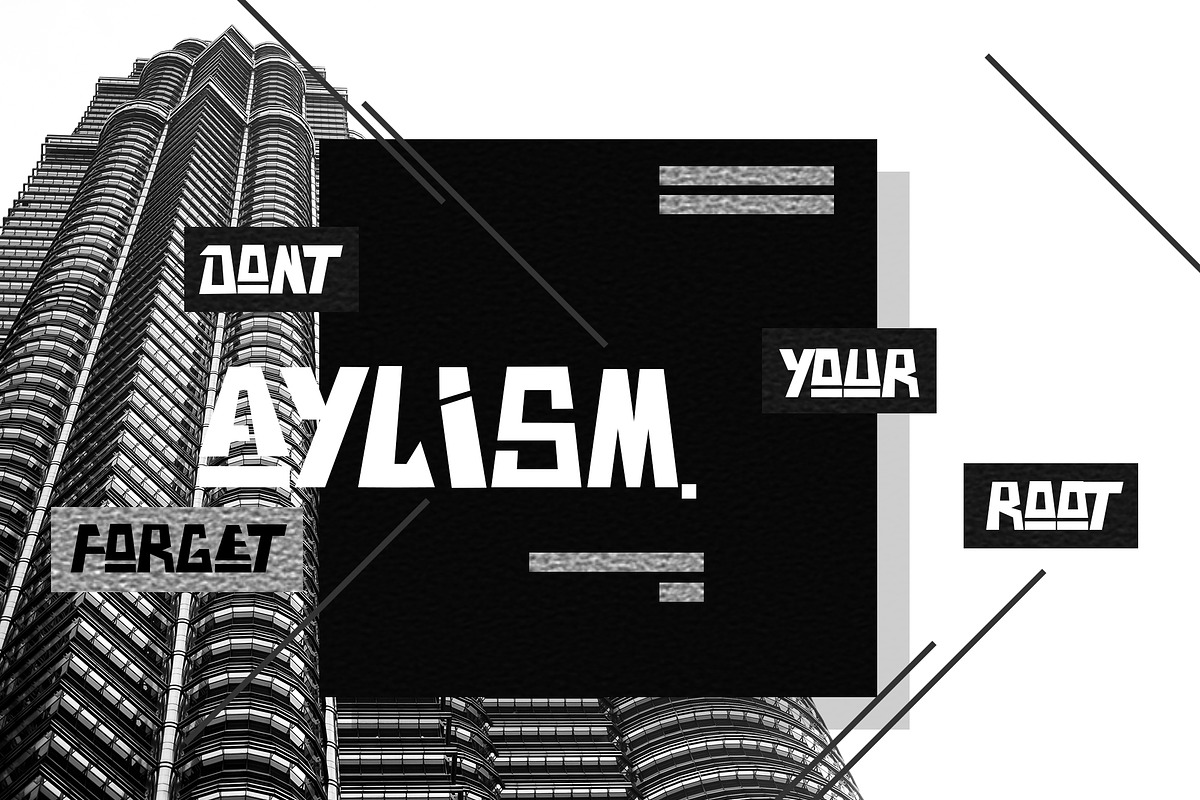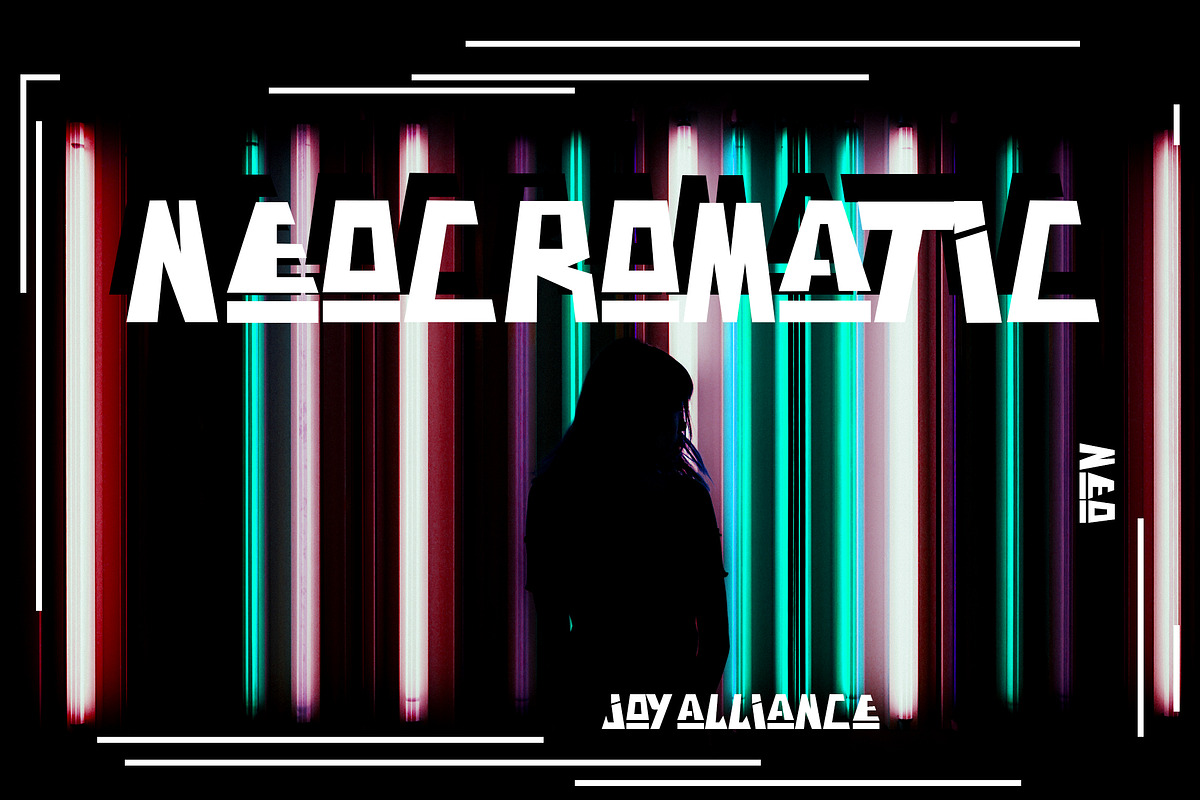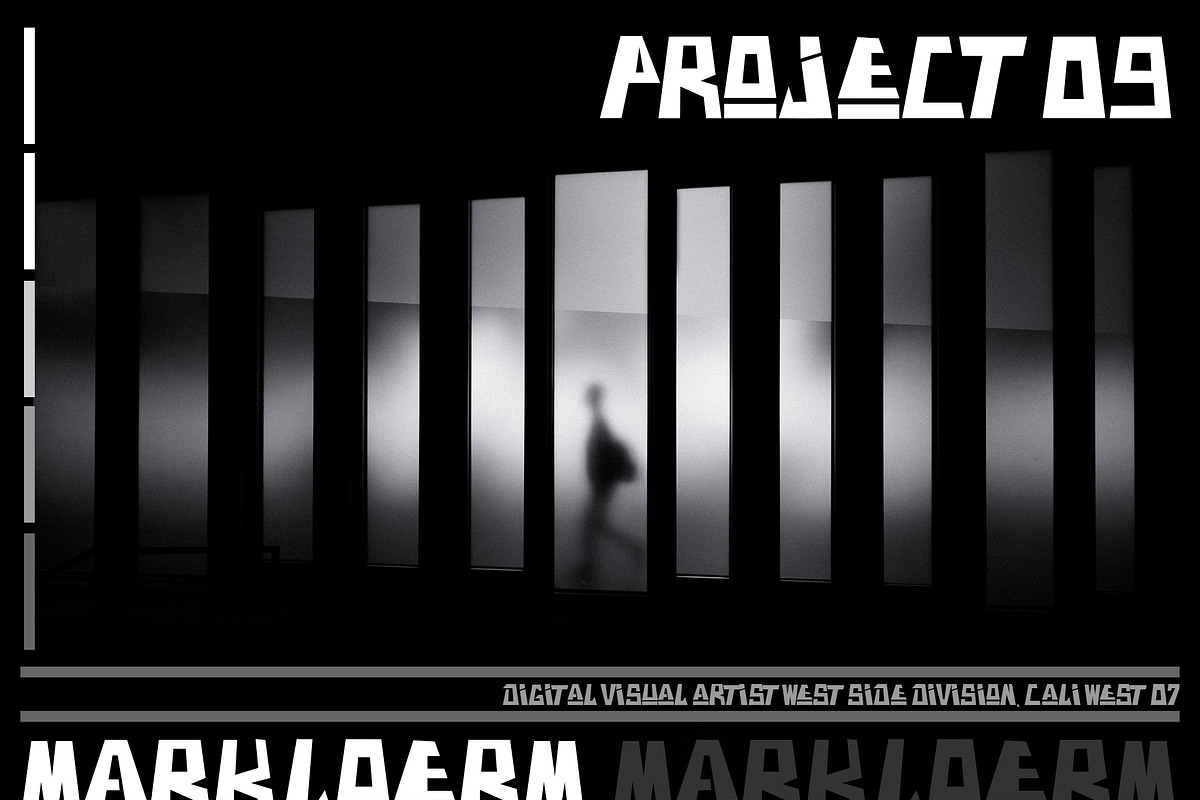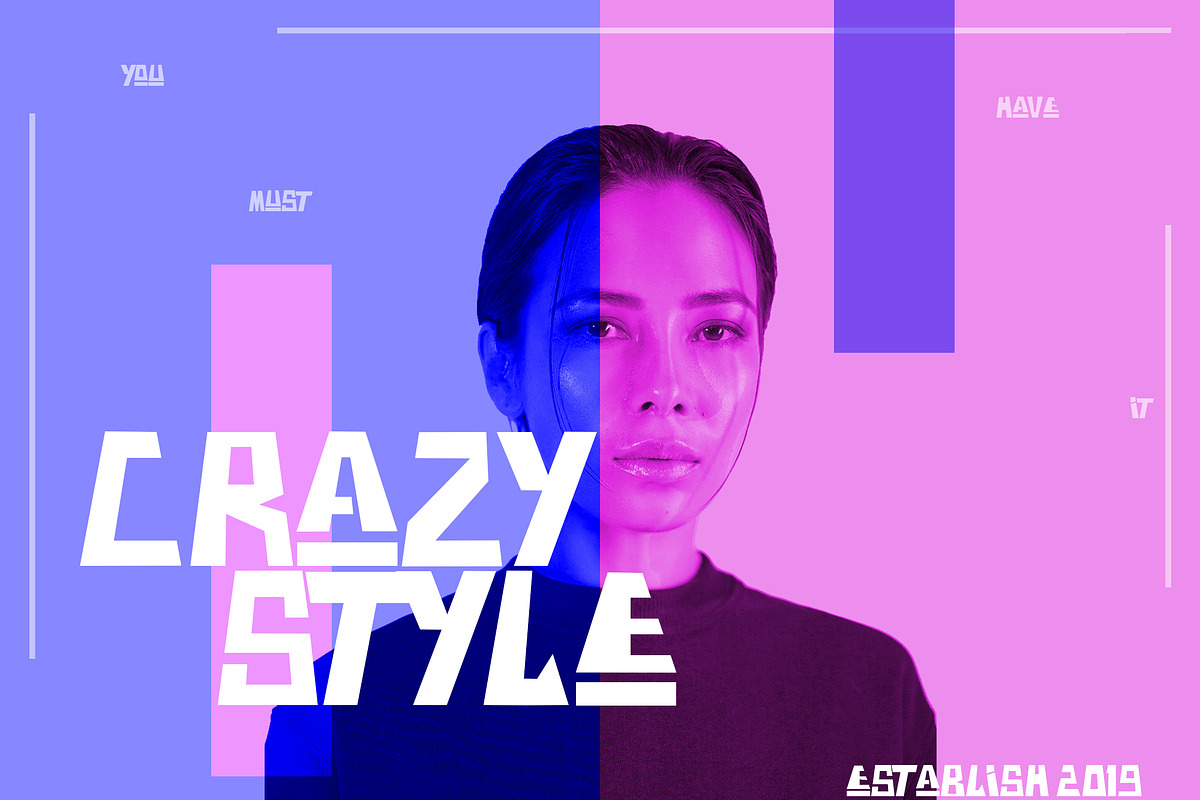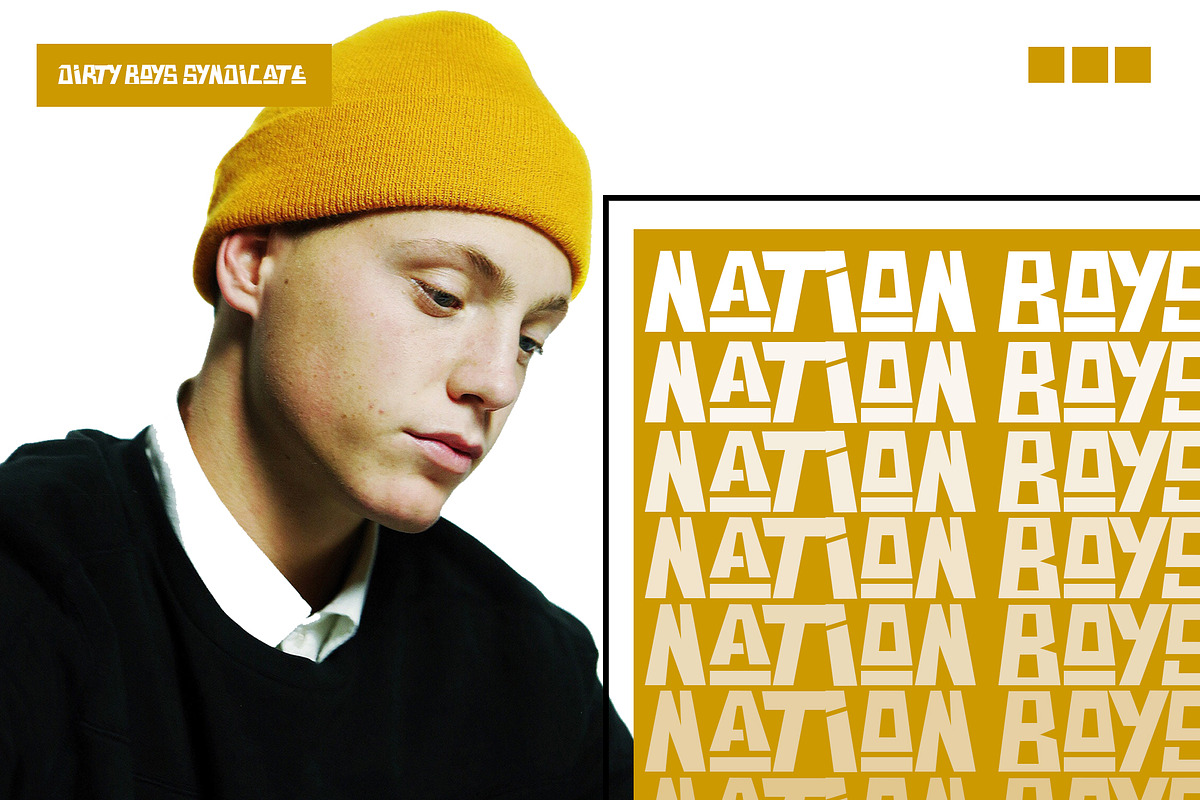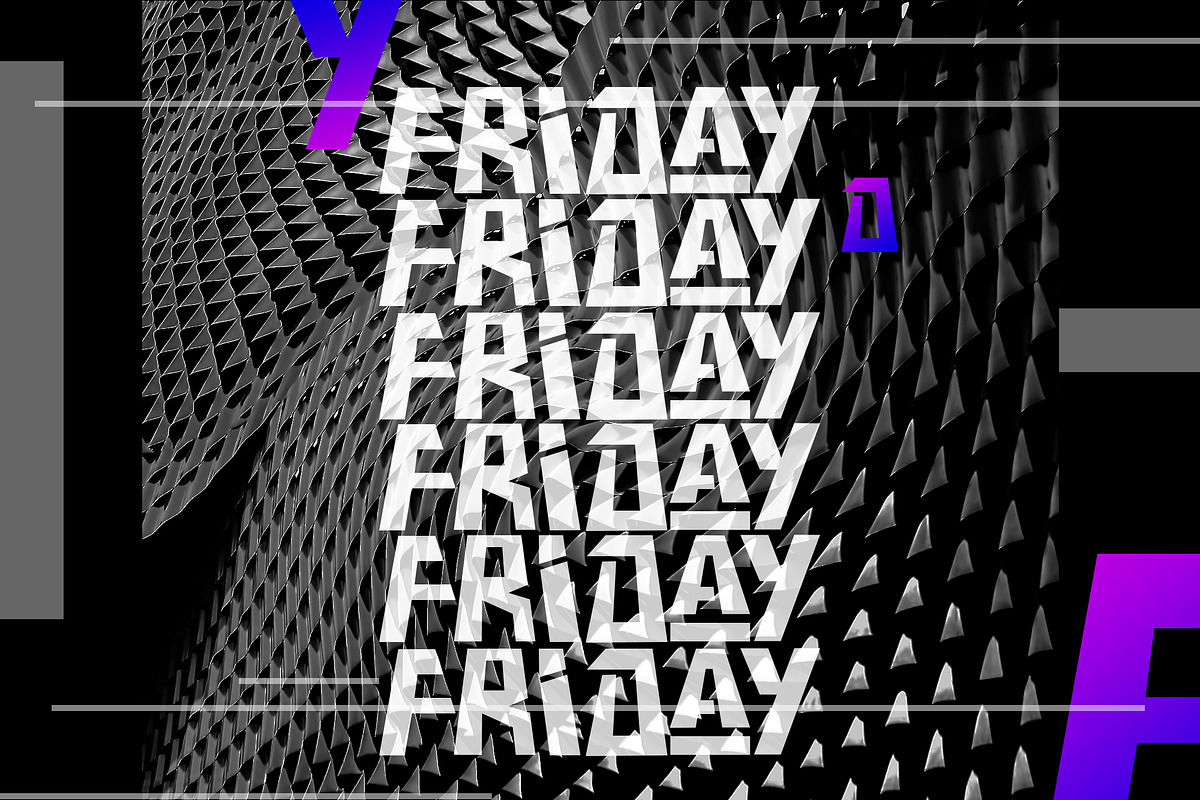
DOGTOWN ! Font | Ungeometric
DOGTOWN font includes uppercase letters, numerals, a large range of punctuation. UnGeometric font with BOLD style. Created for poster, web design, branding, illustrations, badges and some other works.
- DOGTOWN font includes uppercase letters, numerals, a large range of punctuation.
- DOGTOWN Bold
DOGTOWN ! Font | Ungeometric by MuntabArt fits naturally into Branding, posters, packaging, typography.